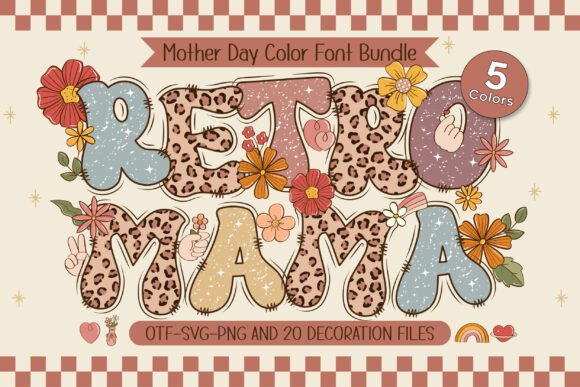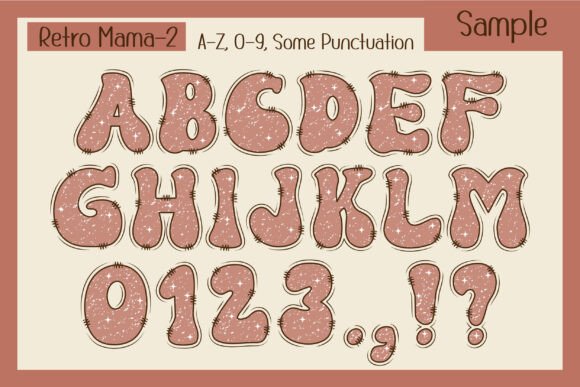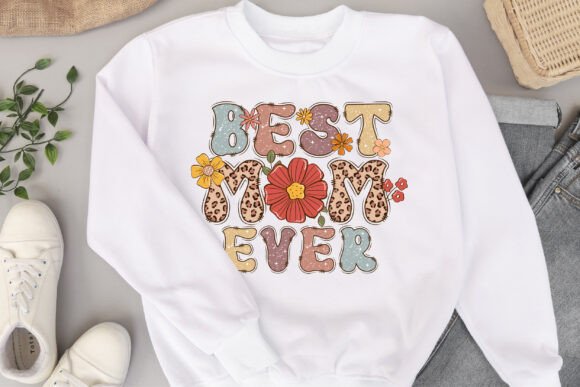
Retro Mama Font
Introducing “Retro Mama” a bold and stylish vintage retro vibe color font that celebrates the essence of a fashionable, groovy mom! Featuring a classic groovy font style with a chic leopard pattern and a warm vintage color palette, this 5-color font brings a trendy yet nostalgic touch to your designs. Perfect for Mother’s Day posters, quotes, T-shirts, custom names, DIY craft projects, and more, “Retro Mama” exudes confidence and charm. Plus, it comes with 20 matching doodle cliparts of beautiful flowers, making it the ultimate font for moms who love retro fashion and timeless style!